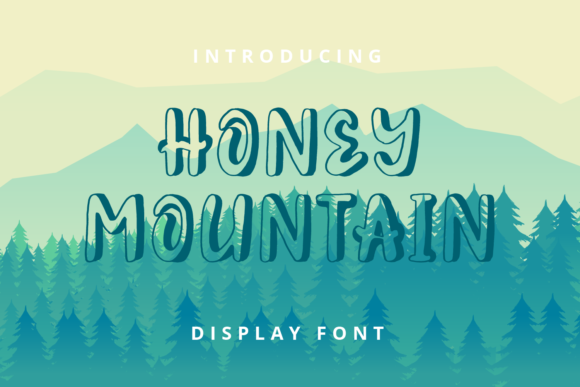
The Perfect Nectar for Your Designs: Discover Honey Mountain Font
Have you ever found yourself lost in a sea of ideas, searching for the perfect font to bring your design to life? Maybe you’re working on a whimsical children’s book, a fantasy novel, or a quirky advertisement – whatever the project, you know that the right font can make all the difference.
Enter Honey Mountain Font, a playful and magical display font that’s sure to add a touch of magic to your designs. With its whimsical and quirky flair, this font is perfect for anyone looking to add a little extra sparkle to their work. Whether you’re a seasoned designer or just starting out, Honey Mountain Font is a valuable addition to your toolkit, guaranteed to bring a smile to your face and a touch of personality to your projects.
Honey Mountain Font Key Features
- Unique Characteristics: The Honey Mountain Font features a unique blend of modern and vintage elements, with a distinctive honeycomb-inspired design that adds a touch of warmth and elegance to any text.
Honey Mountain Font Review
I recently had the chance to work with the Honey Mountain Font, and I must say it’s a unique addition to any design project. ✨ The font’s mix of modern and vintage elements gives it a quirky, eye-catching feel that’s perfect for creative or artistic projects. The font is highly customizable, with a wide range of weights and styles to choose from, making it easy to find the perfect fit for your design.
One of the things I appreciate about Honey Mountain is its versatility. ✨ It works well in a variety of contexts, from titles and headings to body text, and even as a standalone element in graphic design. The font is also highly legible, making it easy to read even at smaller sizes.
- ⚠️ May not be suitable for formal or professional applications: The font’s playful, whimsical feel may not be the best fit for more formal or professional projects.
Overall, I think Honey Mountain Font is a great addition to any design arsenal. While it may have some limitations, its unique look and feel make it a great choice for creative or artistic projects. With its wide range of customization options and high legibility, it’s definitely worth checking out.
To get the most out of the Honey Mountain font, use it for text-based designs where a playful, handwritten feel is desired. Use it in conjunction with other fonts to create a unique and visually appealing design. Experiment with different font sizes and styles to add emphasis and create visual interest.
The Honey Mountain font is ideal for:
- Social media graphics and advertising